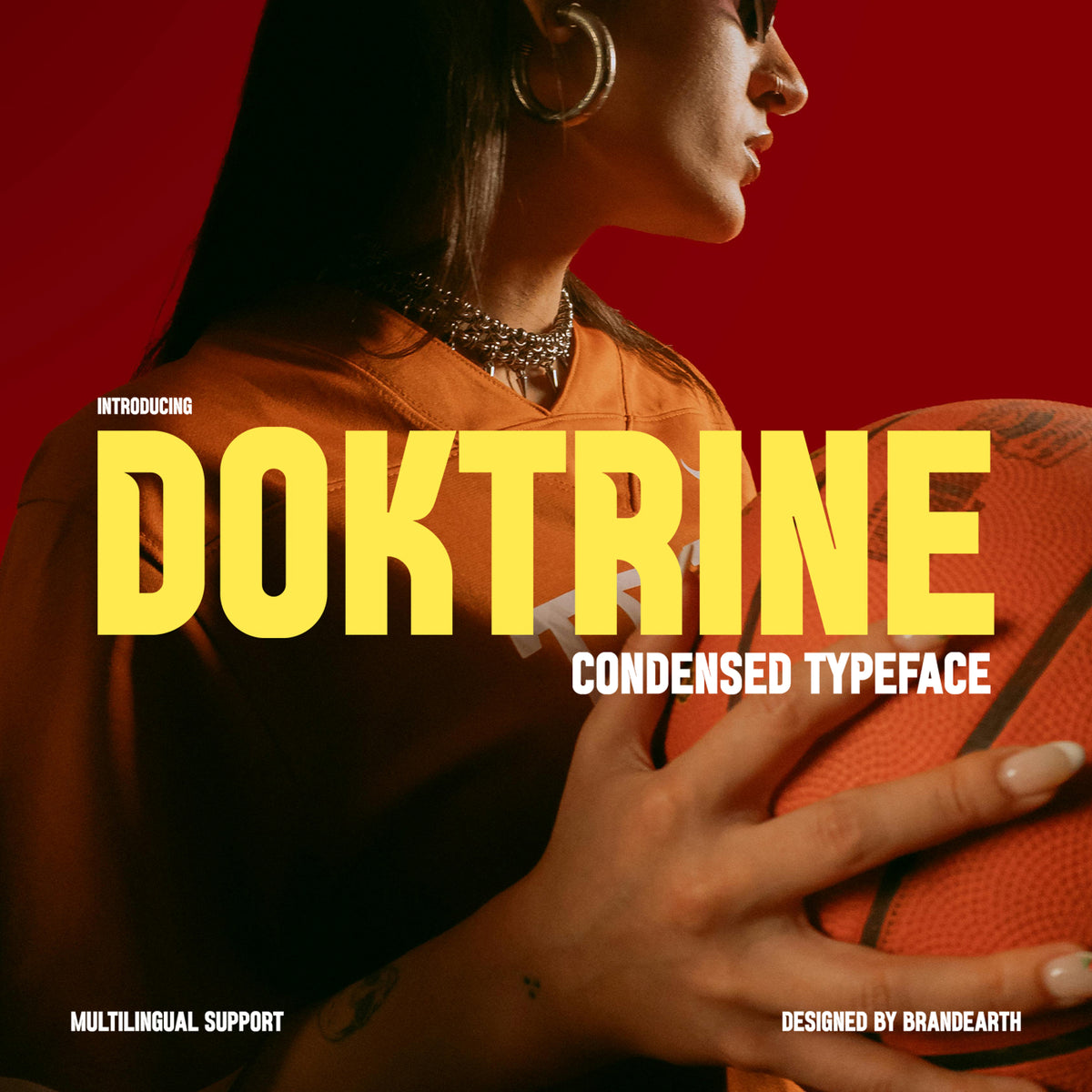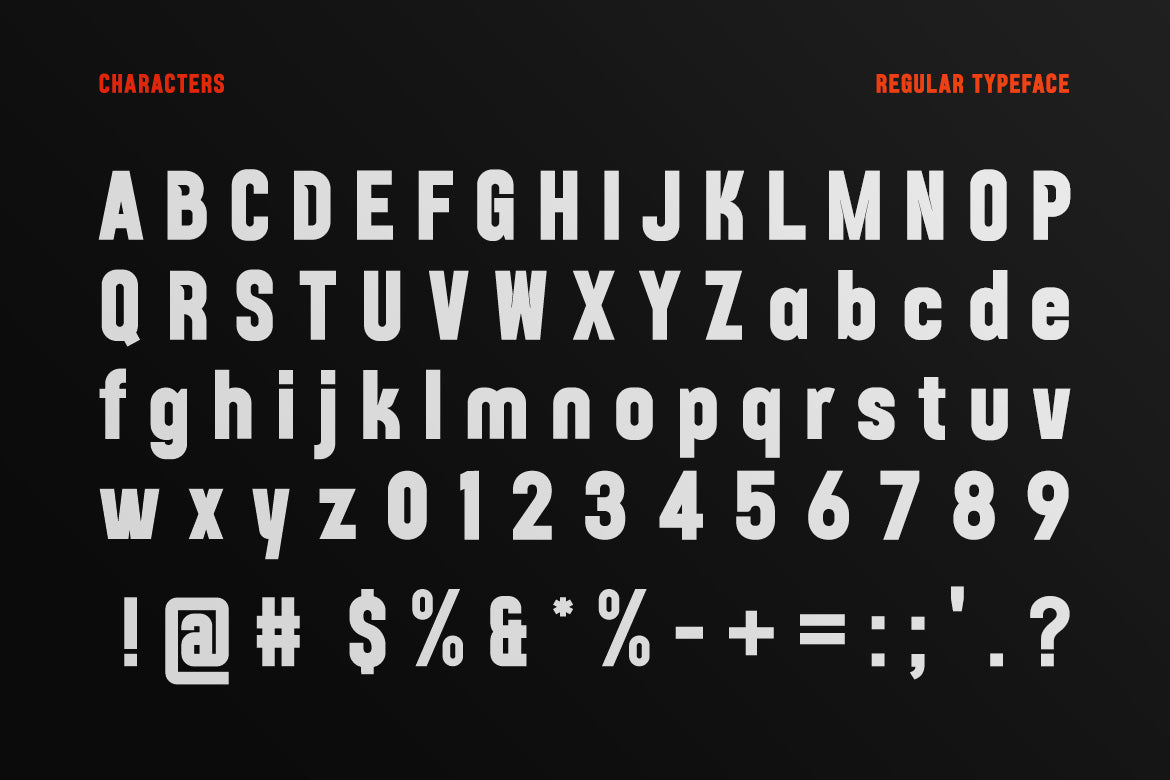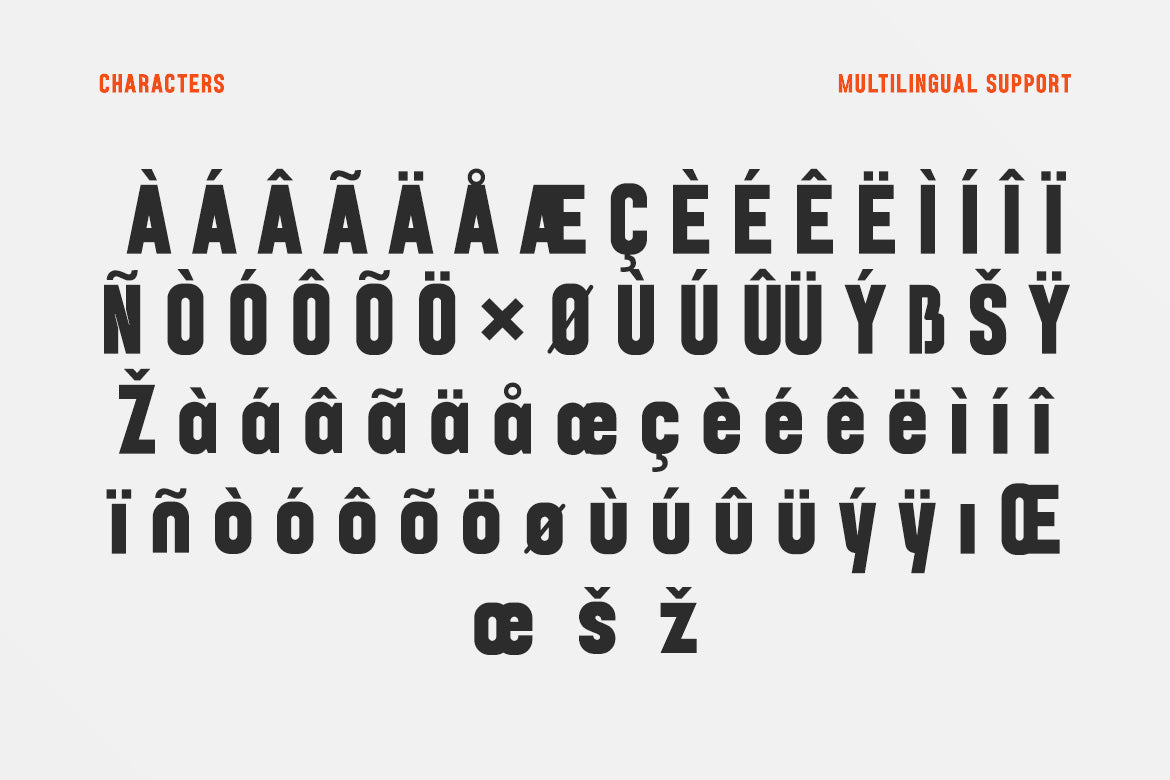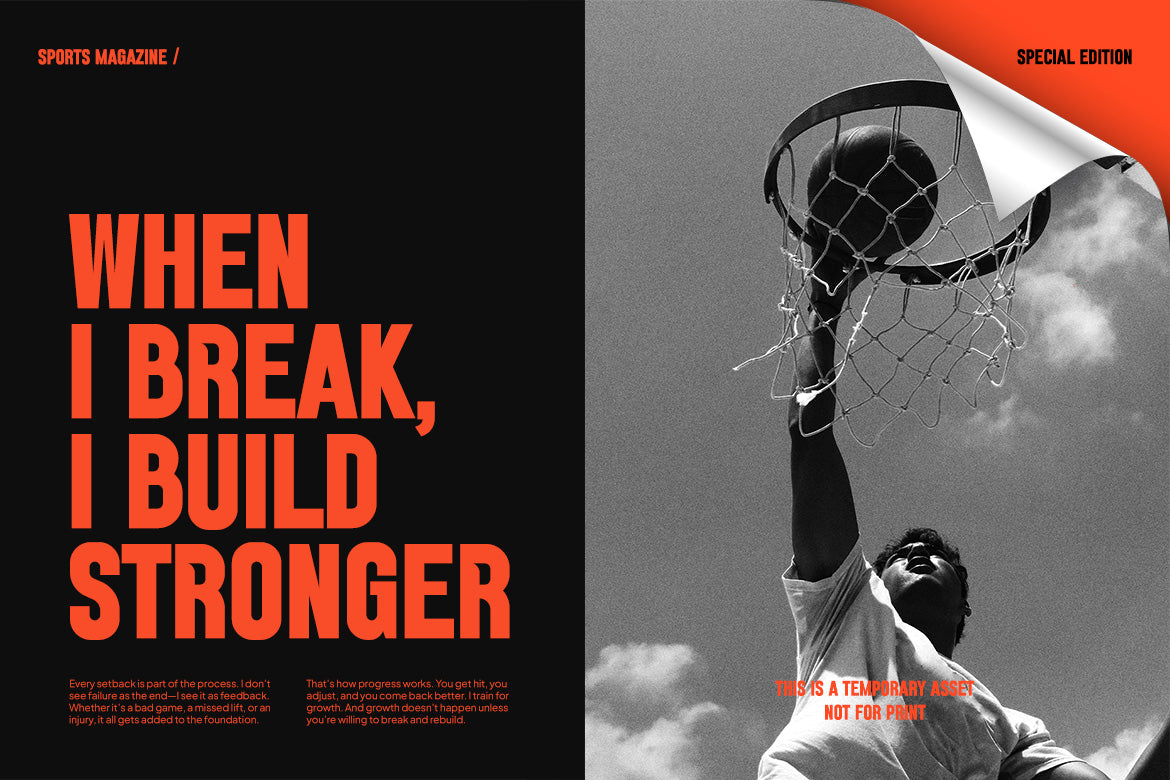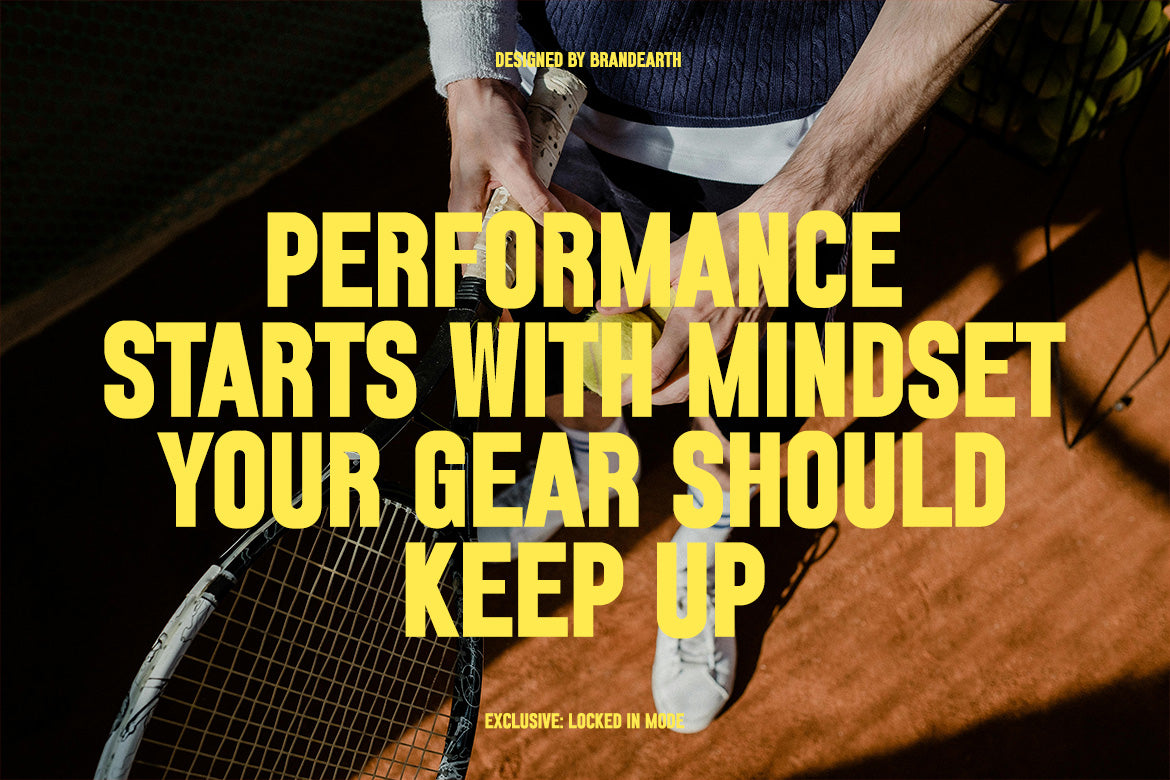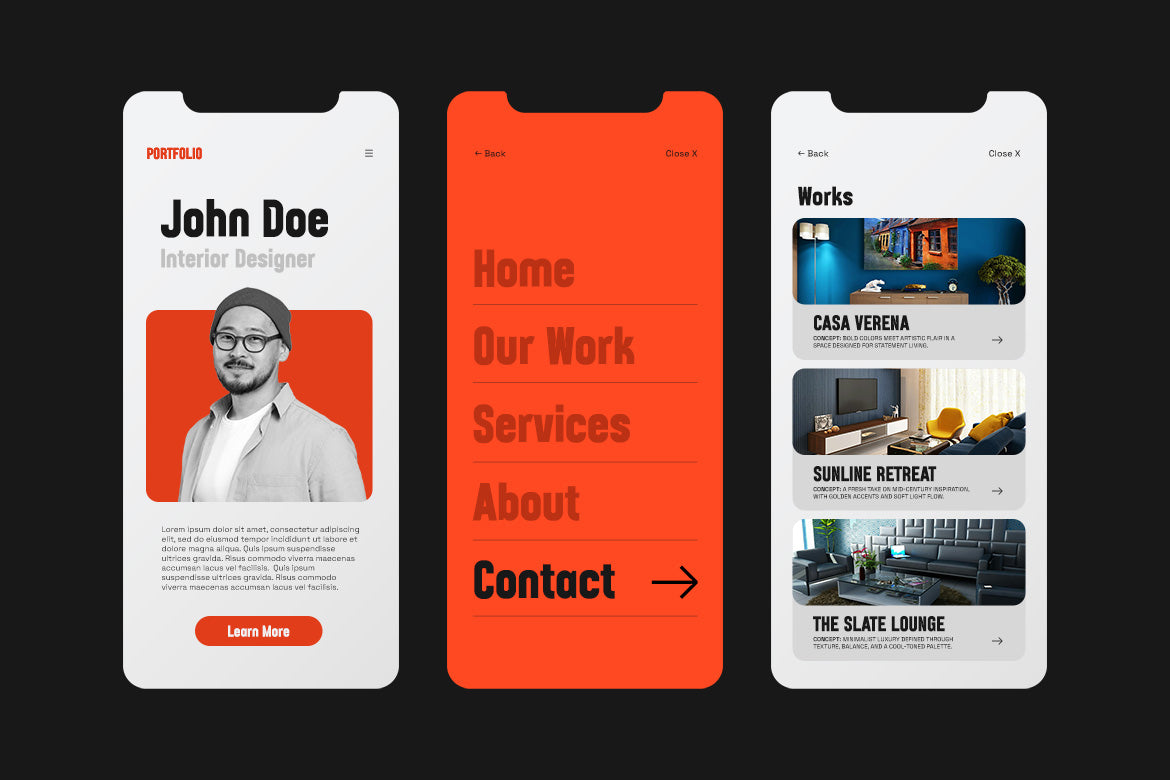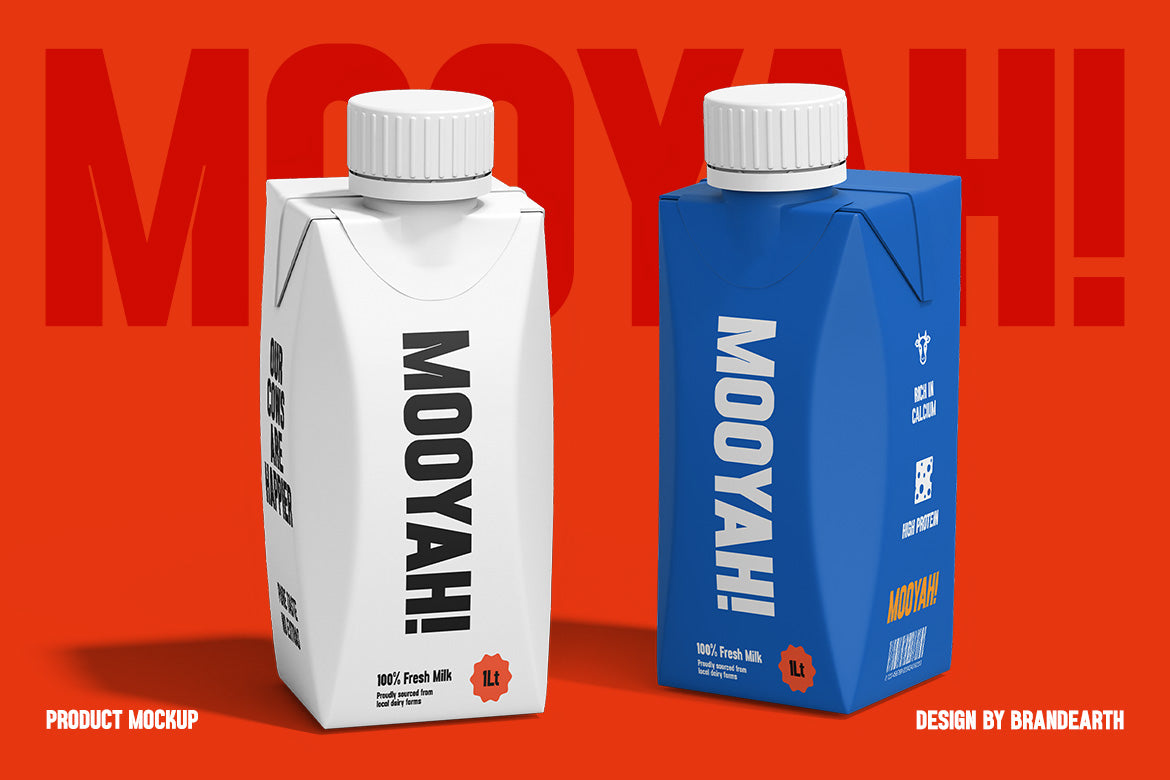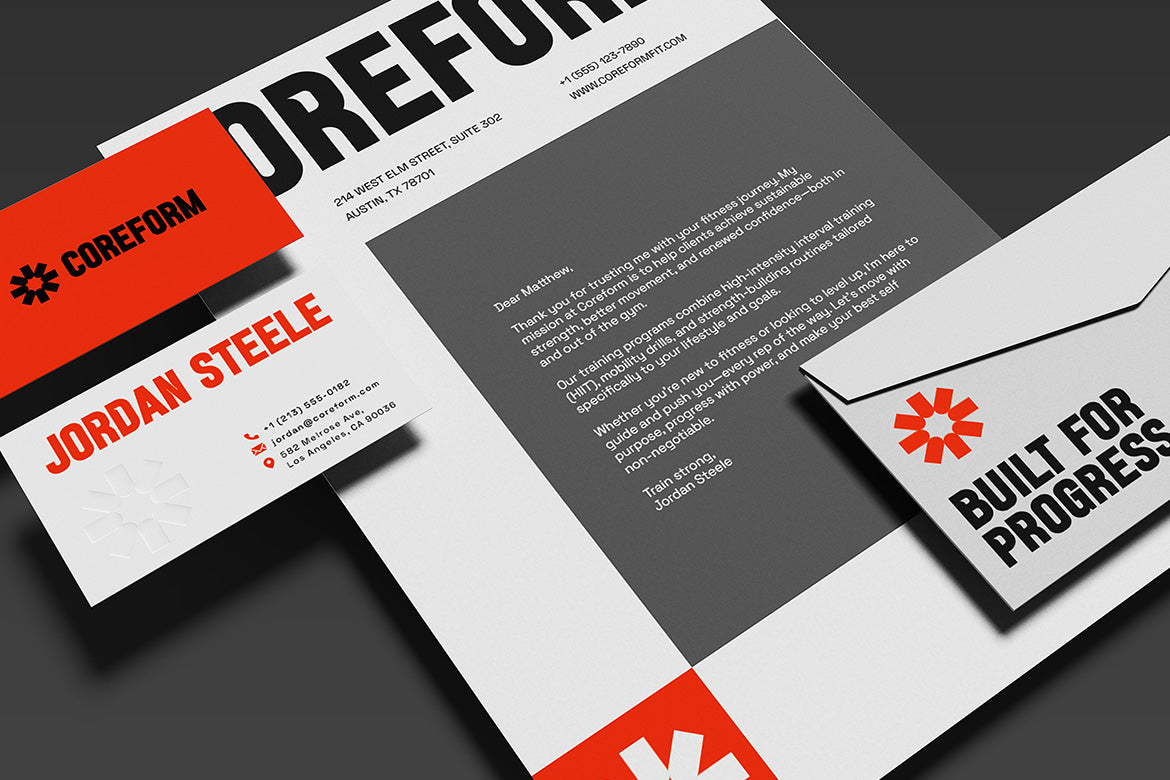
Doktrine Condensed Typeface Font
Doktrine is a bold condensed sans serif font designed for impact. With its tall letterforms, tight spacing, and solid structure, it delivers strength and clarity in every use. This typeface is ideal for athletic branding, urban posters, strong headlines, and modern editorial layouts. It supports multilingual characters and includes punctuation, making it suitable for global use in both print and digital formats. Doktrine combines raw energy with typographic precision—perfect for bold communication.
Relevance and Use Cases Doktrine is perfect for sports branding, athletic, posters, tech campaigns, editorial layouts, magazine headers, product packaging, protest posters, motivational graphics, urban advertising, esports branding.
Doktrine is a bold condensed sans serif font featuring tall letterforms and tight spacing. It includes uppercase and lowercase characters, numerals, punctuation, and multilingual support, and is available in TTF, OTF, and WOFF formats.